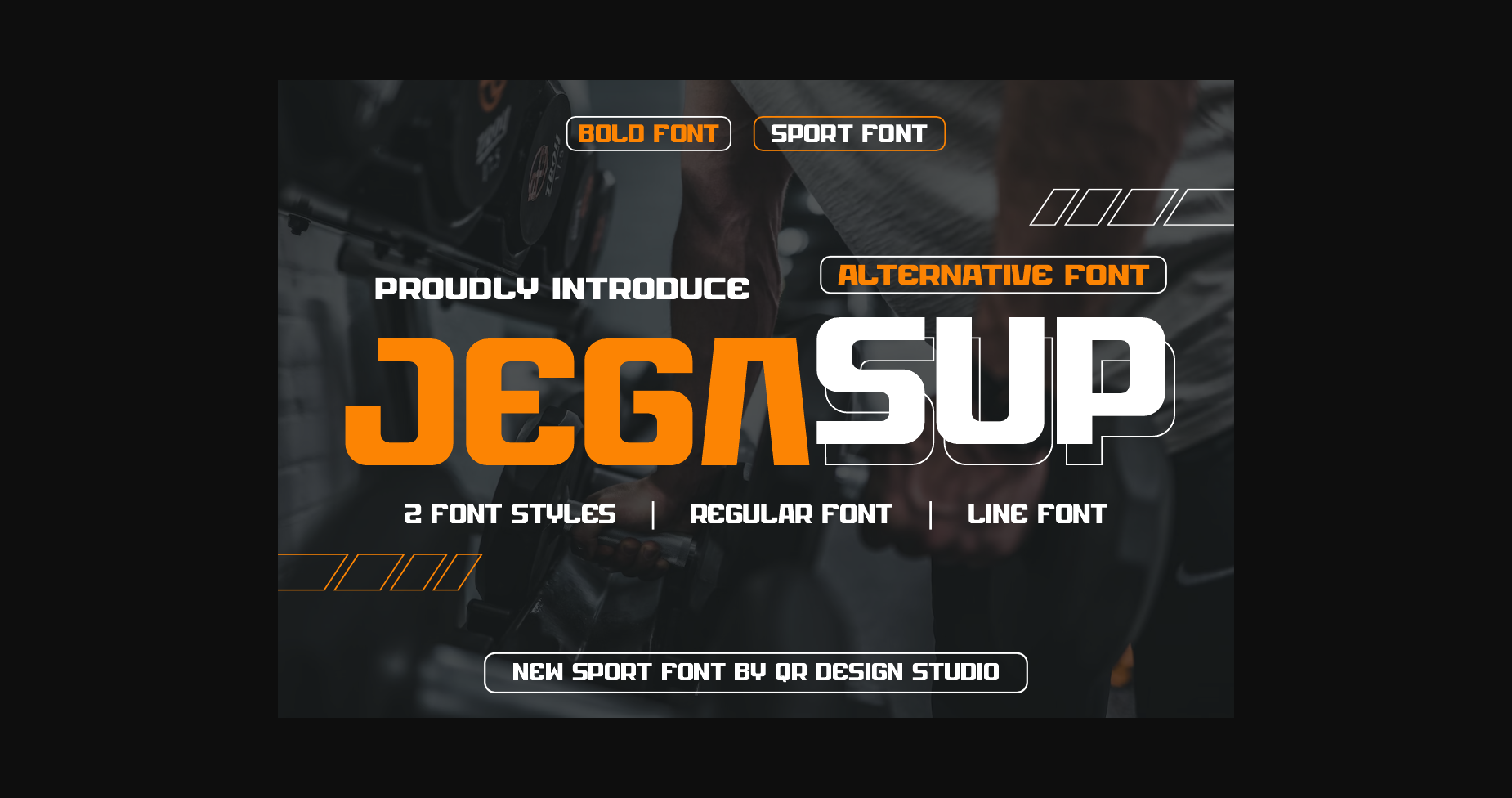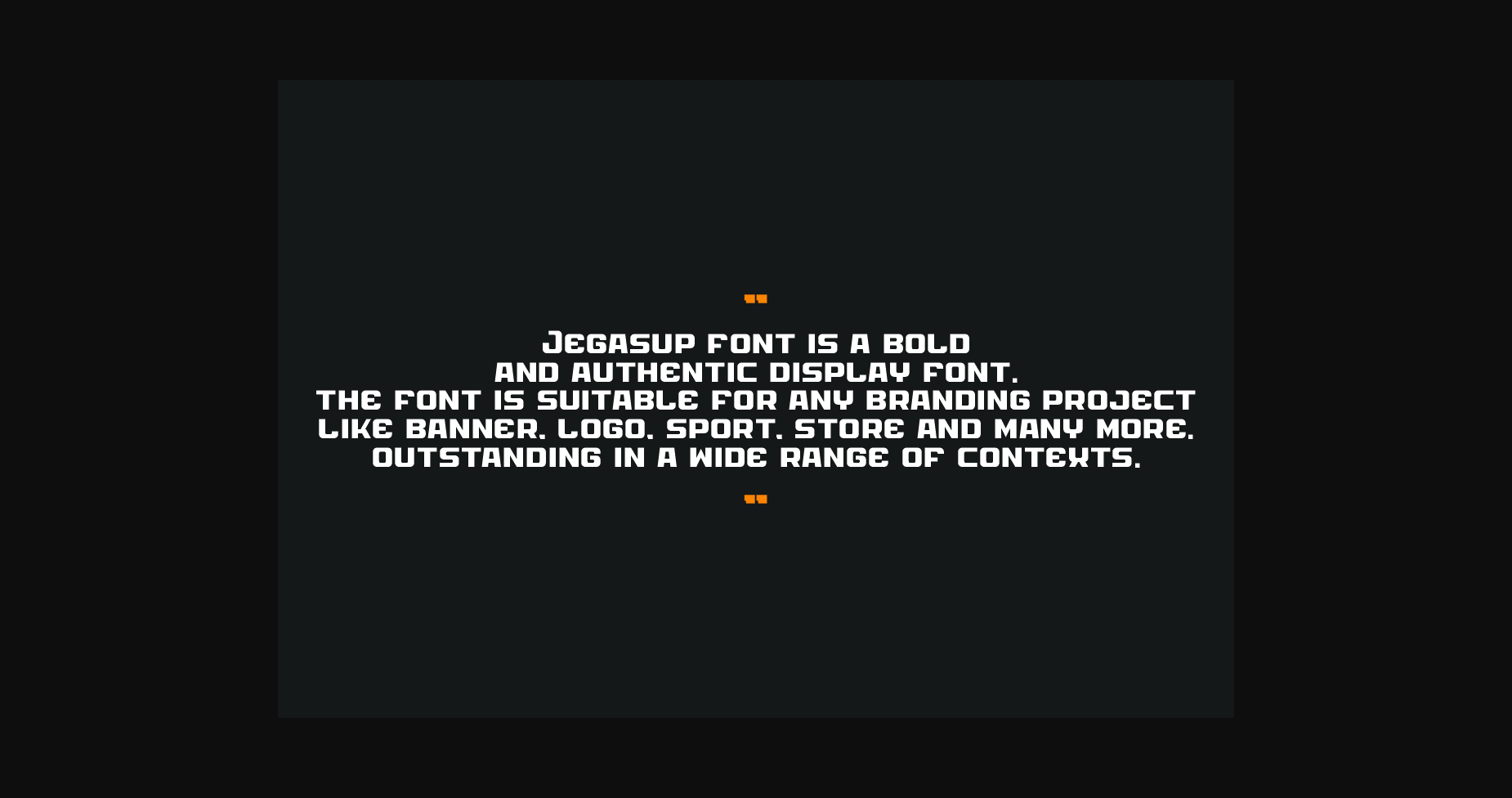
About Jegasup Font
Jegasup Font is a bold and authentic sans serif font. It is suitable for any branding project like logos, sports, web design, social media, flyers, cards and so much more!